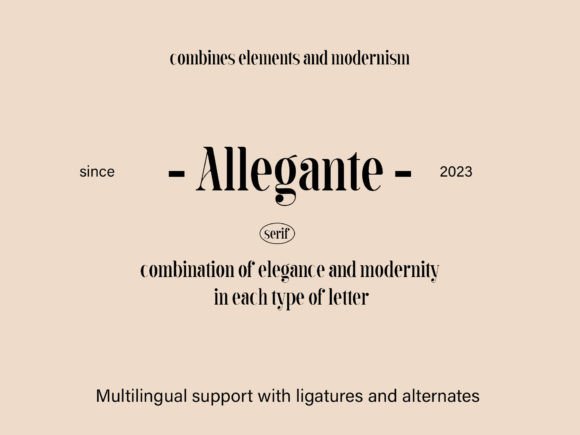
The Elegance of Allegante Font: A Designer’s Delight
I’ll never forget the time I was working on a luxury branding project for a high-end jewelry client. I had spent hours perfecting the logo design, but something was missing. The font I had chosen just didn’t have the sophistication and elegance that the brand demanded. That’s when I stumbled upon Allegante Font, and it completely transformed the project. In this article, I’ll share my experience with Allegante, its features, and how to make the most of it in your design projects.
An Honest Review of Allegante Font
What I Love About Allegante ✨
• 💫 Elegant and authentic: Allegante’s thin-cased serif design exudes luxury and sophistication.
• ✅ Versatile: Perfect for branding, packaging, and editorial design projects.
• 💬 Highly legible: Despite its delicate nature, Allegante remains clear and readable, even at smaller font sizes.
• 🎨 OpenType features: Allegante offers a range of stylistic alternates, glyphs, and ligatures to enhance your designs.
• ⚠️ Limited use in body text: Due to its thin case, Allegante may not be the best choice for lengthy paragraphs.
• ⚠️ May require adjustments for digital use: As with any font, some tweaks may be necessary for optimal digital display.
The Backstory of Allegante Font
Allegante was designed by a renowned type foundry with a passion for creating elegant, authentic fonts. Inspired by traditional serif designs, the creators aimed to craft a font that exudes luxury and sophistication. The result is a beautiful, versatile font perfect for a range of design applications.
Q: What is Allegante Font best suited for?
A: Allegante Font is ideal for branding, packaging, and editorial design projects where elegance and sophistication are key.
Q: Can I use Allegante for body text?
A: While Allegante is highly legible, its thin case may not be the best choice for lengthy paragraphs. Consider using it for headings or short blocks of text.
Q: Does Allegante support OpenType features?
A: Yes, Allegante offers a range of stylistic alternates, glyphs, and ligatures, making it perfect for designers who want to add an extra touch to their work.